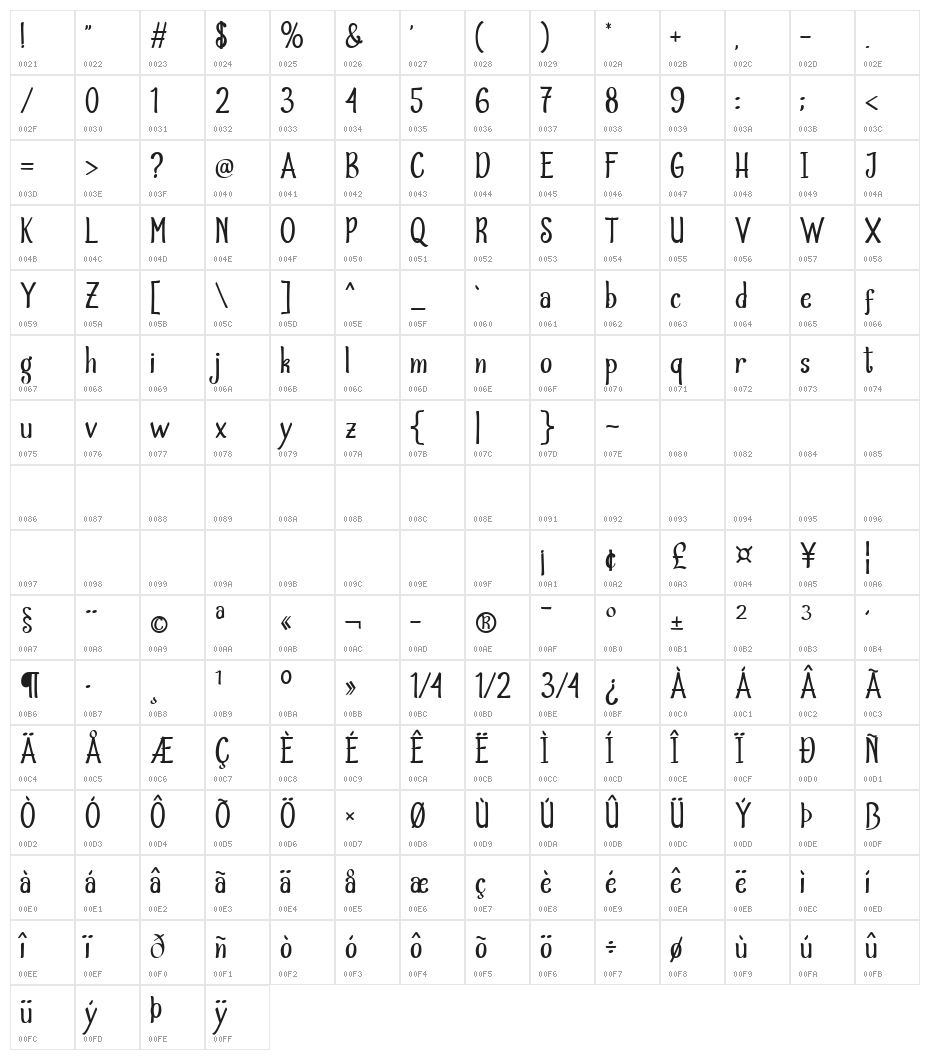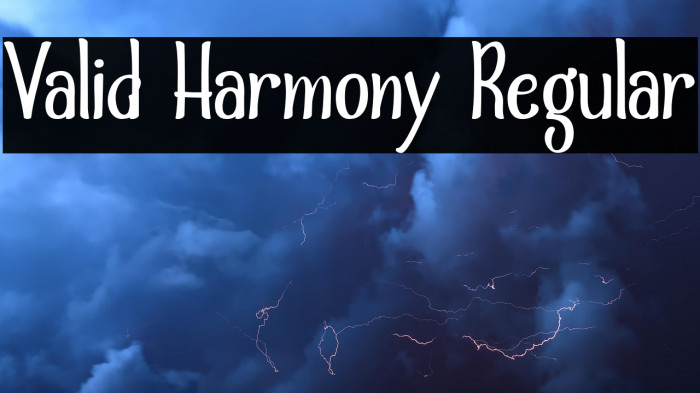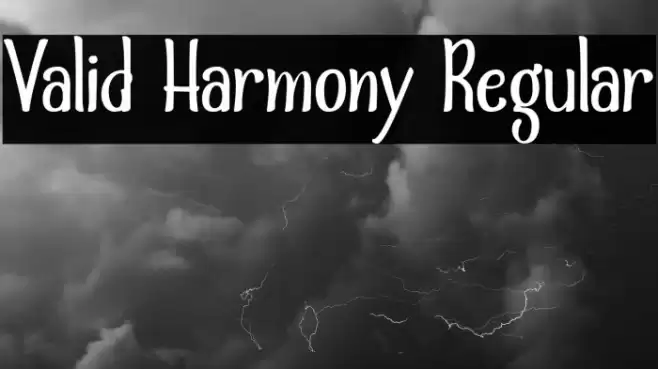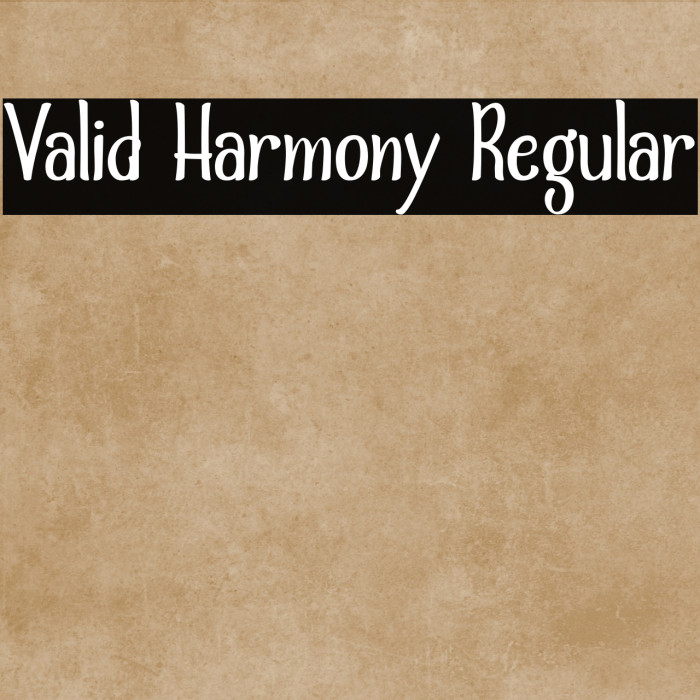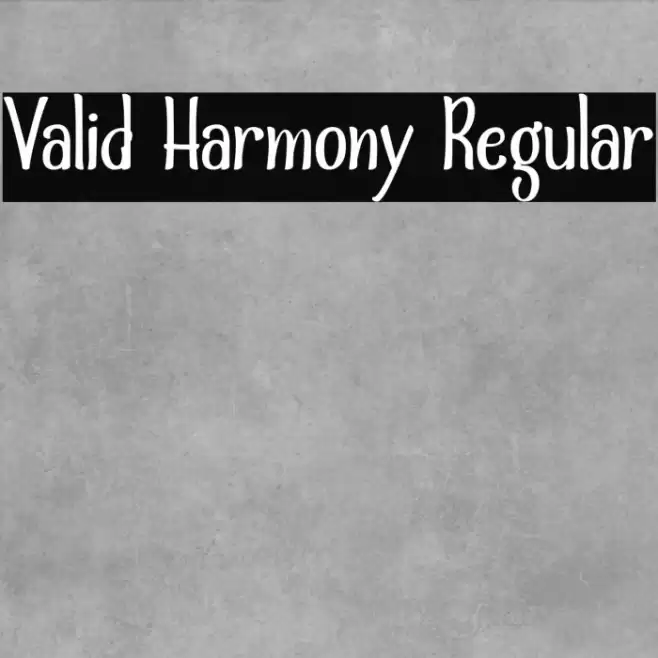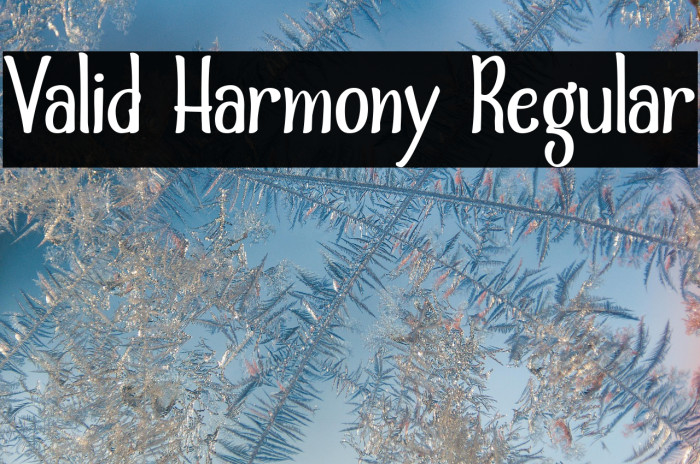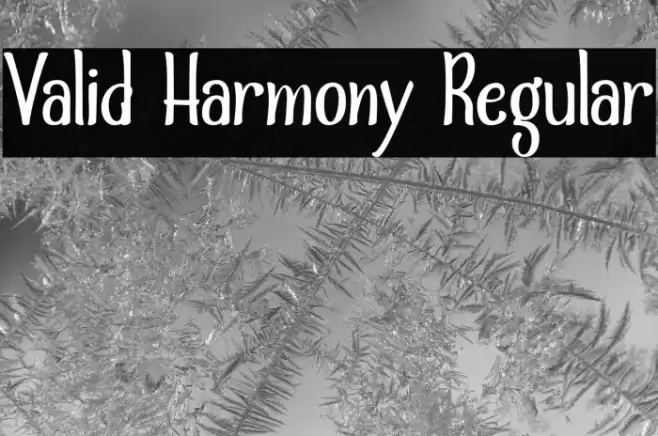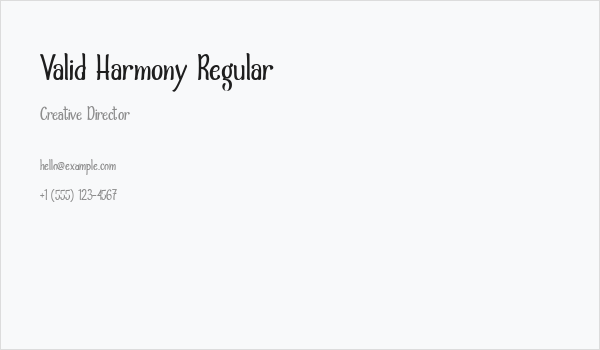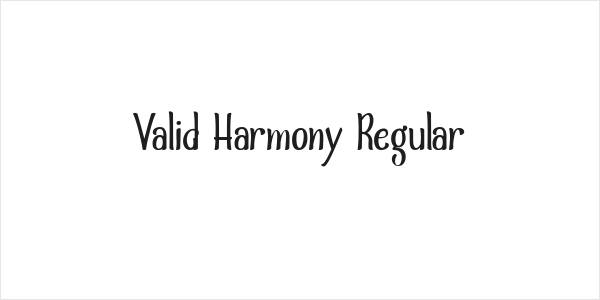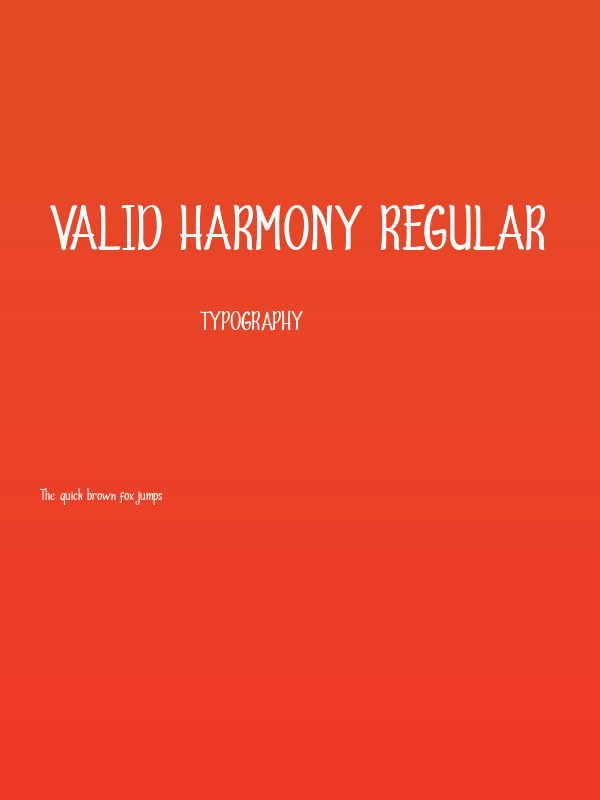
Valid Harmony Regular Font
Valid Harmony Regular Description
This font exhibits a playful and whimsical style, characterized by its irregular and slightly exaggerated letterforms. The strokes are smooth and rounded, giving it a friendly and approachable appearance. The uppercase letters are tall and narrow, while the lowercase letters maintain a consistent flow with a slight slant. Numbers and special characters follow the same playful aesthetic, making the font versatile for various creative uses. The overall design is cohesive, with a hand-drawn feel that adds a personal touch to any project.
| Proposed Projects | Ideal for children's books, greeting cards, playful branding, and creative posters. |